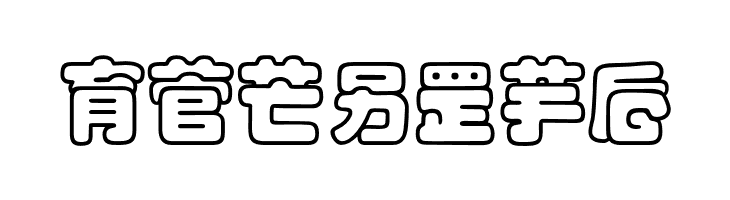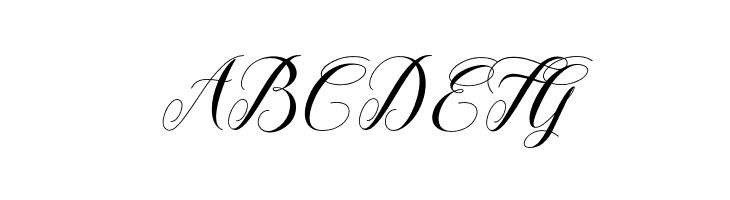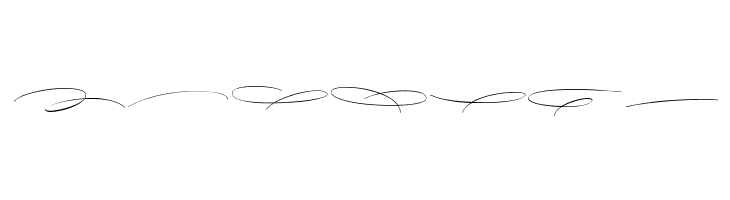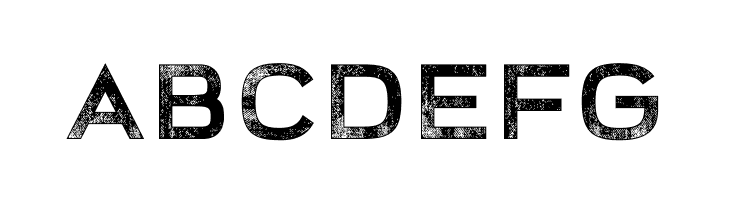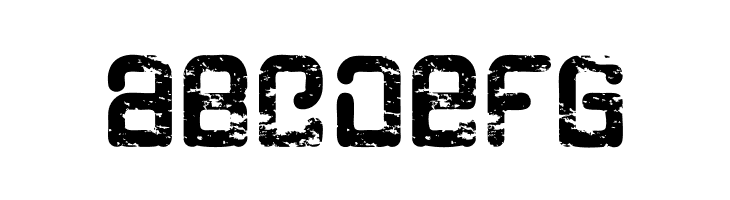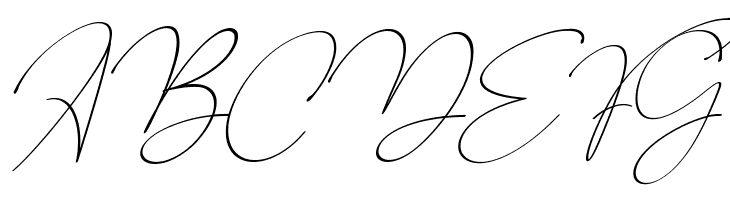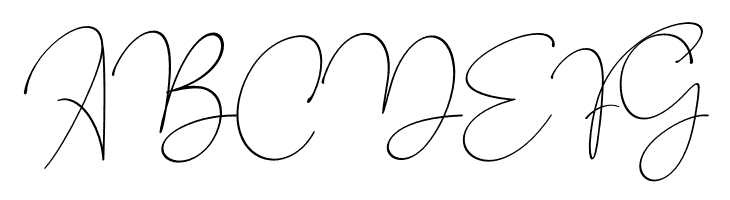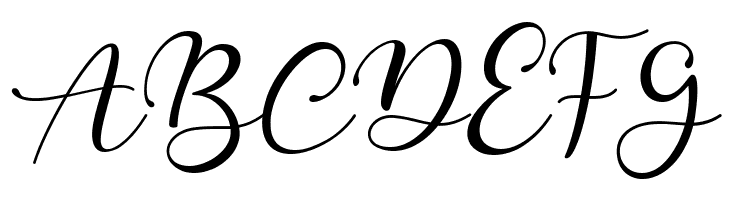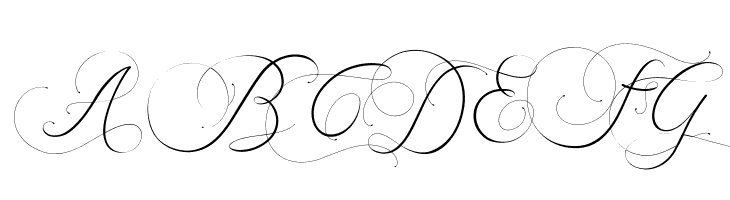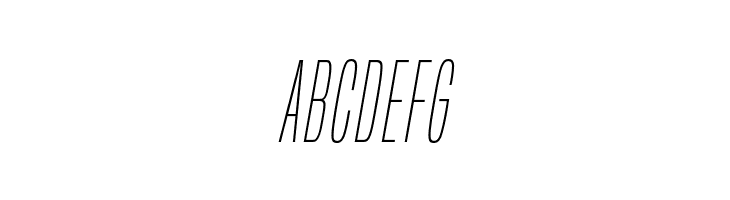
( Maulana Creative - Gilang Maulana - maulanacreative.net/ )
An elegant script font with flowing, interconnected strokes and decorative swashes.
( Maximage - www.maximage.biz )
A bold, playful outline font with rounded edges and a modern aesthetic.
( Muhammad Akbar - creativemarket.com/sinfa )
An elegant script font with high contrast and decorative swashes.
( Muhammad Akbar - creativemarket.com/sinfa )
An elegant script font with flowing, interconnected letters and ornate details.
( Måns Grebäck - www.mansgreback.com )
An elegant, decorative script font with thin, flowing lines and intricate swirls.
( Octotype - www.foundmyfont.com/ )
An elegant script font with flowing cursive style and intricate swashes.
( Parker Creative - Alan Parker - fontbundles.net/parker-creative )
A bold, distressed font with a rugged, vintage appearance.
( Peax Webdesign - www.peax-webdesign.com/goodies.html )
A playful, balloon-themed font with bold, rounded characters.
( Qkila - Quentin Aquila - www.creativefabrica.com/designer/qkila/ )
A distressed, industrial-style font with a rugged, weathered appearance.
( Sronstudio - Yusron Billah )
An elegant, cursive font with flowing, interconnected letters and dynamic contrast.
( Sronstudio - Yusron Billah )
A fluid and elegant script font with graceful, flowing letterforms.
( Sronstudio - Yusron Billah )
An elegant, flowing script font with graceful curves and sophisticated flair.
( Thirtypath - www.thirtypath.com )
An elegant script font with intricate flourishes and a refined, flowing style.
( Typodermic Fonts - Ray Larabie - www.typodermicfonts.com/ )
A sleek, italic font with elongated, narrow characters and a modern style.
( Vladimir Nikolic - www.coroflot.com/vladimirnikolic )
A playful 3D jigsaw puzzle piece font with bold outlines and shadowing.
( Vladimir Nikolic - www.coroflot.com/vladimirnikolic )
A 3D jigsaw puzzle piece font with a playful and engaging design.
( Vladimir Nikolic - www.coroflot.com/vladimirnikolic )
A playful, bold font with a shadow effect and rounded, bubble-like characters.
( Woodcutter - woodcutter Manero - www.woodcutter.es )
A dairy-themed dingbat font with bold, cartoon-style milk and farm icons.
( Zetafonts - www.zetafonts.com )
Outlined, festive Christmas icon set with consistent line style.
( dharmas - Jamaludin Ahmad - creativemarket.com/dharmas?u=dharmas )
An elegant script font with flowing, cursive strokes and high contrast.
( groenstudio - Ay Terry - creativemarket.com/groens )
An elegant script font with decorative swirls and modern flair.
( imagex - www.imagex-fonts.com )
A playful, bold font with rounded, bubble-like characters.
( imagex - www.imagex-fonts.com )
A playful, hand-drawn collection of romantic speech bubbles and doodles.
( mightype - creativemarket.com/mightype )
An elegant, flowing script font with interconnected letters and graceful curves.
( weknow - Wino S Kadir - www.creativefabrica.com/designer/weknow/ )
A bold, geometric font with a futuristic and dynamic style.
( www.sparkybuddy.com - David Pustansky - www.sparkybuddy.com/fonts )
A playful font made entirely of fruit illustrations, perfect for creative projects.
( AncientLahiru )
A hand-drawn, rustic font with irregular strokes and an organic feel.
( Dingfontbats )
A whimsical font with letters integrated into playful monkey illustrations.
( Emily Penley Fonts - www.emilypenley.com )
A dynamic, arrow-themed font with a modern and playful design.
( Fenotype - www.fenotype.com/ )
Playful, rounded sans-serif with bold outlines and geometric shapes.
( JOEBOB graphics - www.joebob.nl/ )
An elegant and flowing script font with intricate letterforms and decorative flourishes.
( Joorgemoron@gmail.com )
A playful, bamboo-inspired decorative font with a hand-drawn feel.
( Katz Fontz - katzfonts.50megs.com/kg.html )
A whimsical, monkey-themed decorative font perfect for playful designs.
( Katz Fontz - katzfonts.50megs.com/kg.html )
A playful, decorative font with letters hanging on a clothesline, ideal for creative projects.
( LeChefRene - members.aol.com/lcrfonts/ )
A whimsical font with bold letters and playful bunny illustrations.